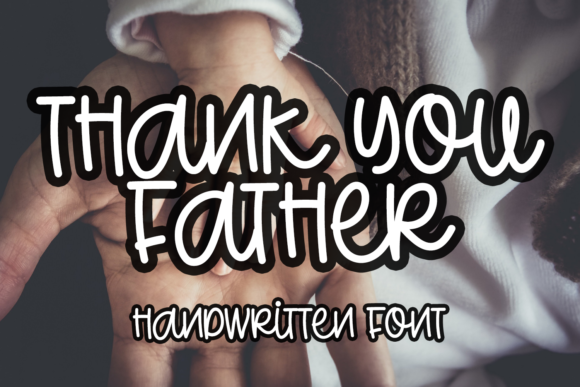
Introducing Thank You Father Font, the ultimate script font that will take your creative projects to new heights! Created by the talented Al Ghul, this casual handwritten font is exactly what you need to make your designs truly remarkable.
Looking for the best font for text tattoos? Look no further! Thank You Father Font combines elegance and a touch of rebellion, making it the perfect choice for expressing your thoughts and emotions on your skin. Its captivating and artistic strokes will turn your tattoo into a masterpiece, leaving a lasting impression on everyone who sees it.
But why limit yourself to tattoos? Thank You Father Font is a versatile tool that can be used in various design projects. Whether you're creating eye-catching logos, captivating social media posts, or stunning website headers, this font will add a unique charm and artistic flair to your work.
With Thank You Father Font, your text will never be boring again. Its intricate details and handcrafted feel will captivate your audience, making them instantly connect with your message. Your words will come to life, evoking powerful emotions and leaving a lasting impact on readers.
But it doesn't stop there. This font is not only visually appealing but also highly practical. Its readability ensures that your message is conveyed effortlessly, whether in print or on-screen. Say goodbye to dull and generic fonts that fail to engage your audience. With Thank You Father Font, your text will always make a statement.
Unlock your creativity and let Thank You Father Font be your secret weapon. Its extensive character set allows you to experiment with different styles, sizes, and decorative elements. Whether you're designing invitations, posters, or even merchandise, this font will elevate your creations and make them truly unforgettable.